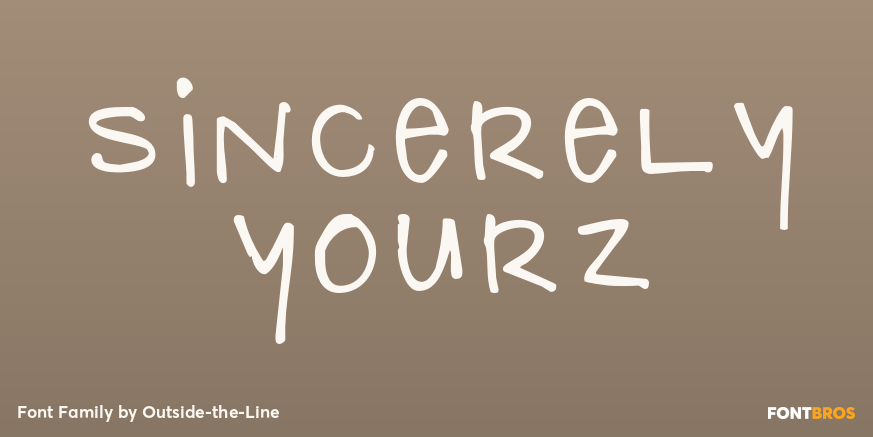
Sincerely Yourz
About Sincerely Yourz
Sincerely Yourz is the newest font in the Love Letters series from Outside the Line. It is a hand-printed font with extra letter spacing. All the letters have about the same height. All vowels are lower case whether they are caps or not. This font has…